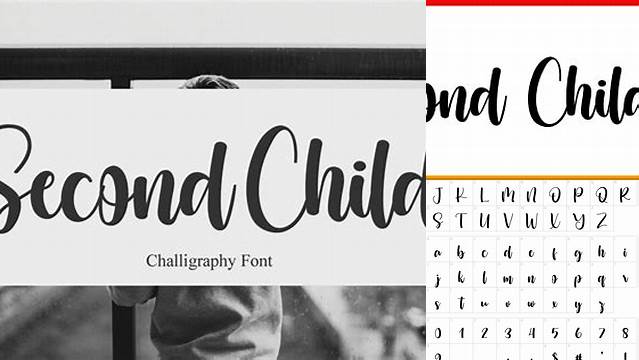
Are you on the hunt for the perfect second child font to add a touch of whimsy and personality to your design projects? Look no further! This comprehensive guide will walk you through everything you need to know about finding, downloading, and using the second child font for free. We'll cover the font's unique characteristics, its various applications, and, most importantly, where you can safely and legally download it without spending a dime. So, grab your favorite beverage, settle in, and let's dive into the wonderful world of the second child font!
The second child font, with its playful and slightly irregular letterforms, is a fantastic choice for a wide range of creative endeavors. Whether you're designing a children's book, crafting a birthday invitation, or adding a personal touch to your website, this font can bring a sense of joy and authenticity to your work. Its hand-drawn feel makes it particularly well-suited for projects that aim to evoke feelings of warmth, nostalgia, and childlike wonder. But before you start incorporating this delightful font into all your designs, it's essential to understand its origins and the nuances of its usage. The second child font isn't just about aesthetics; it's about capturing a specific emotion and communicating it effectively through typography. Keep reading to discover the best practices for utilizing this font and where to find those coveted free downloads.
What Makes Second Child Font Special?
The second child font isn't just another typeface; it possesses a distinct personality that sets it apart from the crowd. Its charm lies in its imperfections – the slightly uneven lines, the subtle variations in letter height, and the overall hand-drawn aesthetic. These characteristics give the font a warm and approachable feel, making it ideal for projects that aim to connect with audiences on an emotional level. Understanding what makes the second child font unique is crucial for utilizing it effectively in your designs. It's not about technical perfection; it's about capturing a sense of authenticity and playfulness.
One of the key features of the second child font is its versatility. While it's often associated with children's designs, it can also be used in a variety of other contexts. For example, it can add a touch of whimsy to branding materials for small businesses, create eye-catching headlines for blog posts, or even lend a personal touch to wedding invitations. The key is to use it judiciously and in a way that complements the overall design aesthetic. Consider the target audience, the message you're trying to convey, and the other visual elements in your design. When used thoughtfully, the second child font can elevate your work and make it truly stand out.
Furthermore, the second child font's unique character makes it particularly well-suited for projects that require a personal touch. In a world dominated by sleek, minimalist designs, this font offers a refreshing alternative that feels more human and approachable. It's perfect for projects that aim to evoke feelings of nostalgia, warmth, and connection. Think of handmade cards, personalized gifts, or websites that tell a story. The second child font can help you create a visual experience that resonates with your audience on a deeper level. So, if you're looking for a font that's both playful and authentic, the second child font might just be the perfect choice.
One of the best places to start your search is Google Fonts. While the second child font itself might not be directly available on Google Fonts, you can find a wide range of similar fonts that offer the same playful and hand-drawn aesthetic. Google Fonts is a trusted resource that provides high-quality fonts under open-source licenses, meaning you can use them for both personal and commercial projects without any restrictions. Simply browse the Google Fonts library, filter by style (e.g., handwriting, display), and preview different fonts until you find one that captures the essence of the second child font.
Another great option is to explore websites that specialize in offering free fonts from independent designers. These websites often feature a curated selection of high-quality fonts, including those that mimic the characteristics of the second child font. Some popular options include FontSpace, DaFont, and Creative Fabrica (which often has freebies sections). When using these websites, be sure to carefully review the licensing terms for each font. Some fonts may be free for personal use only, while others may be available for commercial use as well. It's always better to err on the side of caution and ensure that you're complying with the licensing agreement.
Finally, consider checking out websites that offer free font bundles or deals. These bundles often include a variety of different fonts, and you might just stumble upon a font that closely resembles the second child font. Keep an eye out for limited-time offers and promotions, as these can be a great way to expand your font library without breaking the bank. Just remember to always download fonts from reputable sources and double-check the licensing terms before using them in your projects. With a little bit of diligence, you can easily find free and legal downloads of the second child font or similar alternatives.
The second child font, with its whimsical charm and hand-drawn aesthetic, is a valuable asset for any designer looking to add a touch of personality to their projects. While finding a free and legal download of the exact font may require some diligent searching, the effort is well worth it. By following the tips and resources outlined in this guide, you can safely and confidently incorporate the second child font (or a similar alternative) into your designs and create visually stunning and emotionally resonant experiences. Remember to always prioritize reputable sources, double-check licensing terms, and use the font judiciously to maximize its impact. So go forth and unleash your creativity, knowing that you have the knowledge and tools to make the most of the second child font!